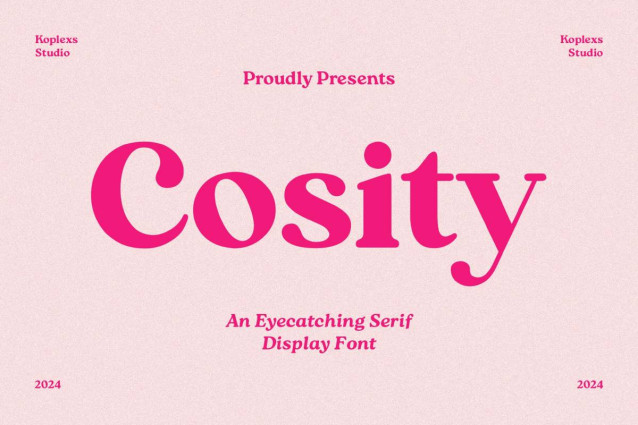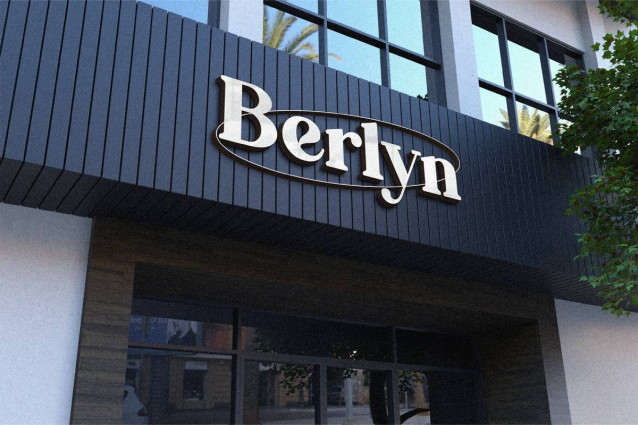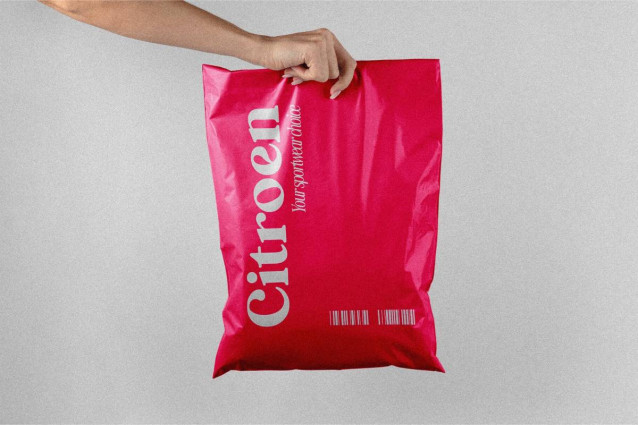
Cosity Font
Cosity Font is an elegant and modern serif font that combines luxury and boldness in perfect harmony. Designed with smooth curves, balanced proportions, and a contemporary touch, it works beautifully for branding fonts, cosmetic fonts, and aesthetic fonts. This typeface delivers a timeless charm that fits both classic and modern design needs, making it ideal for logo fonts, headline fonts, and heading fonts that demand attention and sophistication.
Perfect for luxury branding, fashion packaging, editorial layouts, invitations, and social media design, Cosity Font enhances your creative projects with confidence and style. Its versatile nature allows it to adapt effortlessly to any concept, whether you’re crafting a high-end brand identity or minimalist product label. Elevate your designs with this elegant font that exudes professionalism, creativity, and modern luxury.